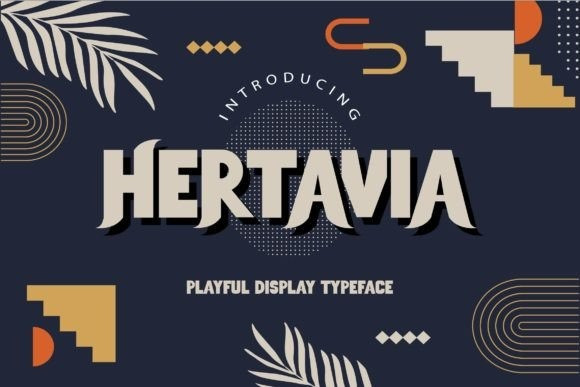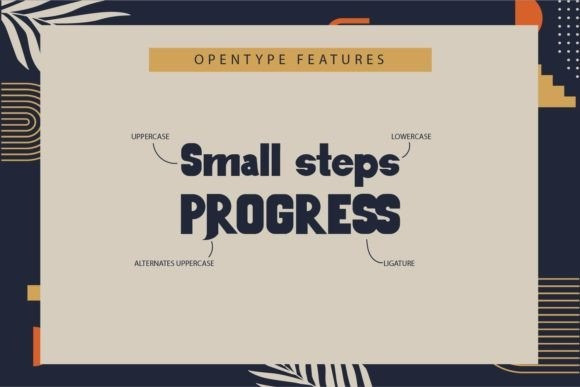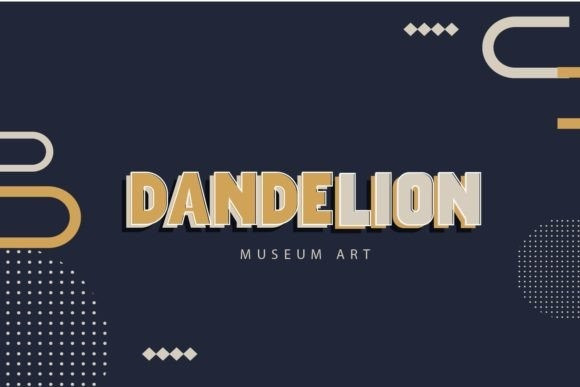
Hertavia Font
Hertavia is a playful display font with a bold, unique style. It looks so beautiful on invitations, greeting cards, branding materials, business cards, quotes, posters, and more!